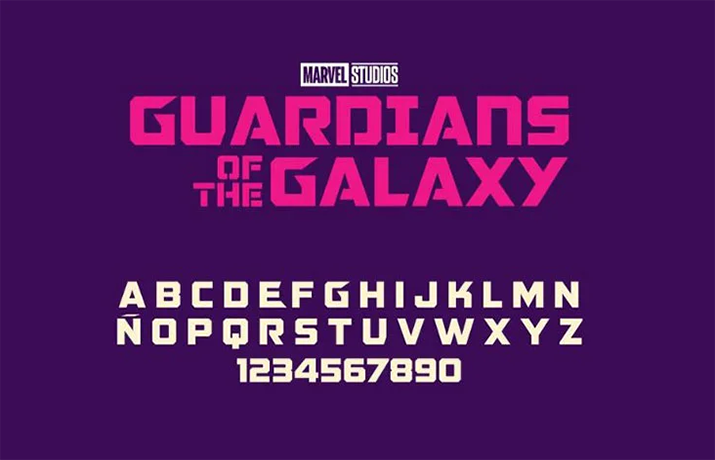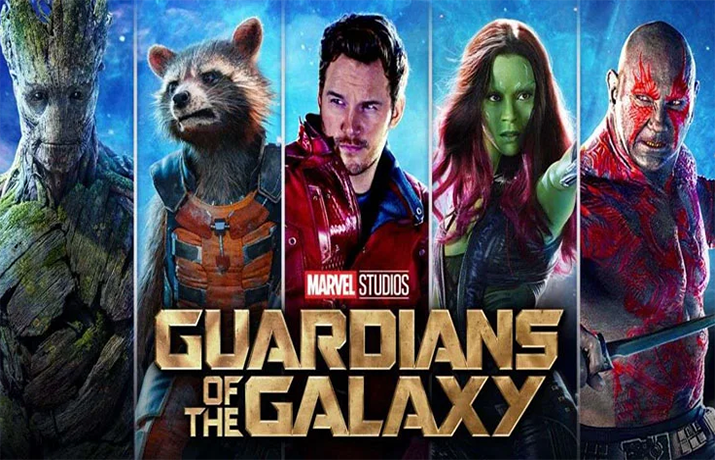
Guardians of the Galaxy Font is a logo typeface basically, It is a 2014 American superhero film based on the Marvel Comics superhero team of the same name. Produced by Marvel Studios.
“We found two fonts that are similar to the movie title lettering in the poster, one is Guardians from Geronimo, and the other is Galactic Vanguardian. Both fonts are free for personal use only.”
Guardians of the Galaxy Font (Details)
| Font Name: | Guardians of the Galaxy Font Family |
| Style: | Logo, Techno, Display |
| Font Designer: | Geronimo |